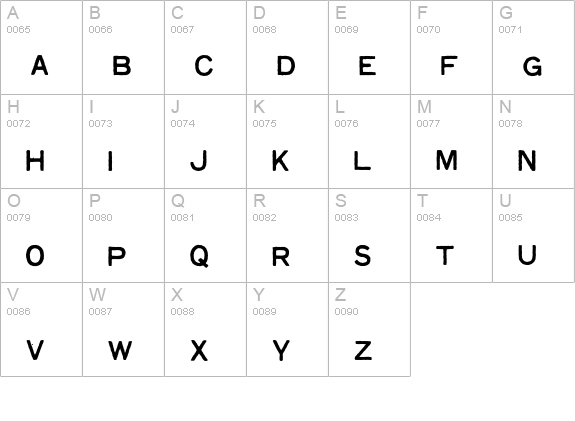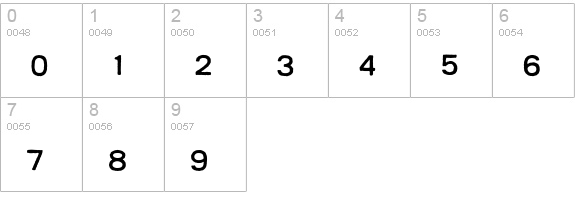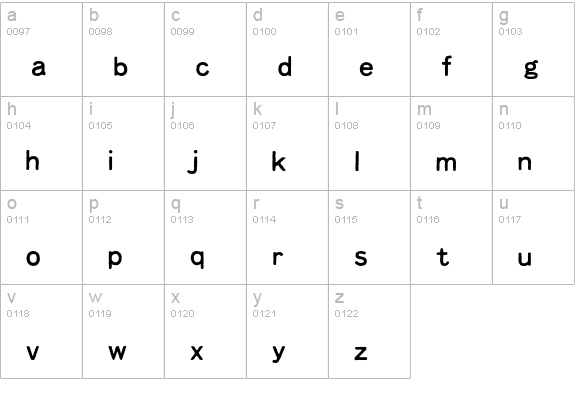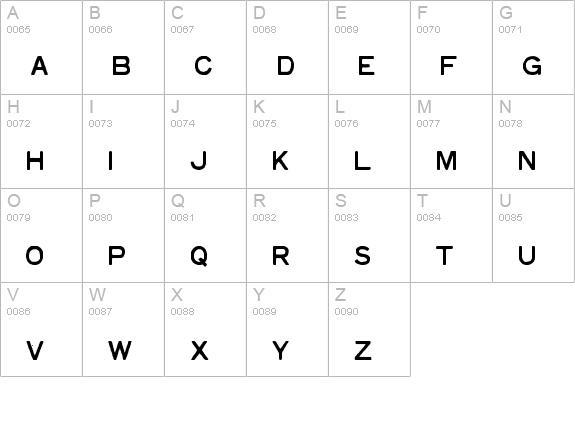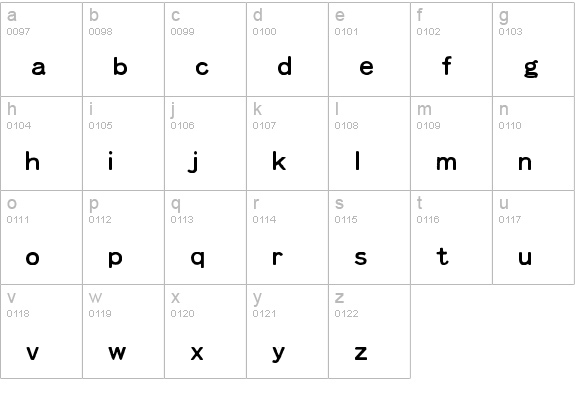
FaxfontStandard Font Details
FaxfontStandard is a versatile and elegant font that exudes a sense of professionalism and modernity. Its clean lines and timeless aesthetic make it suitable for a wide range of design projects, from business documents to creative artworks. This font is available for free download at FontsMarket.com, where users can easily access and enjoy its sleek design and high quality. With FaxfontStandard, you can elevate your projects with a touch of sophistication and style, all at no cost to you. Experience the versatility and beauty of this font today by downloading it for free at FontsMarket.com.